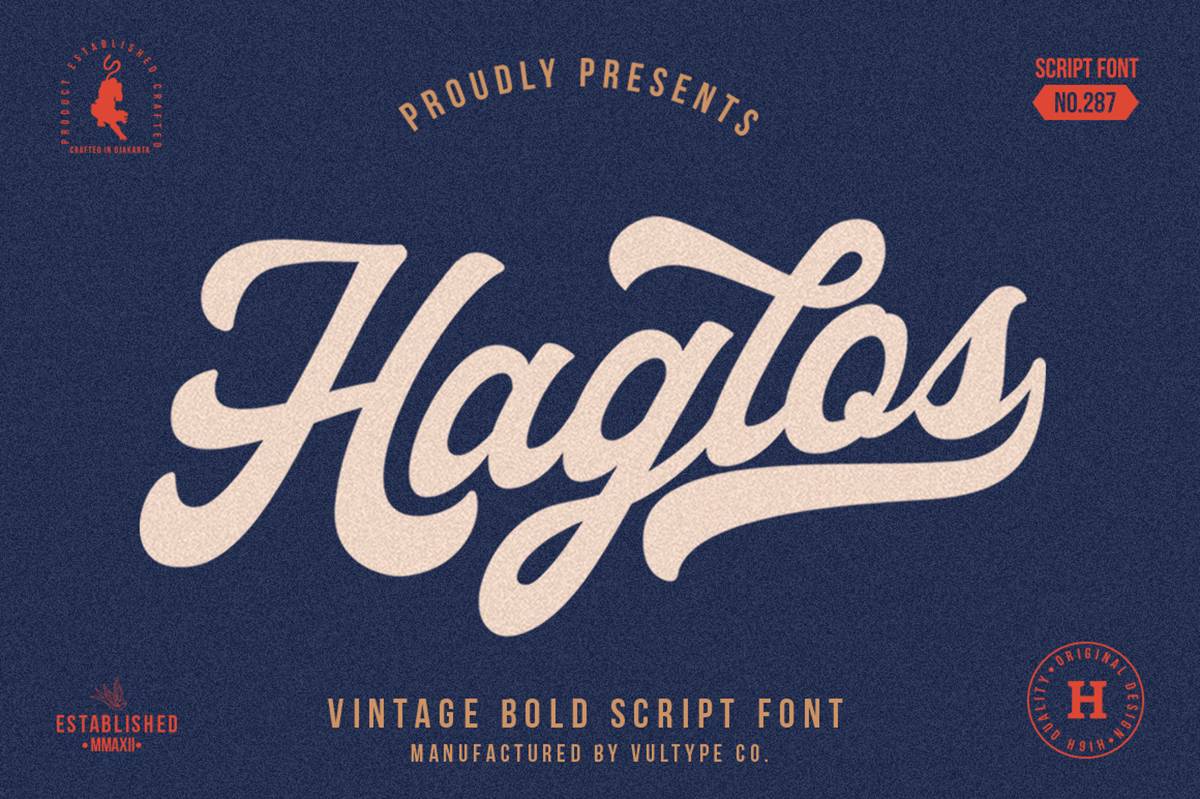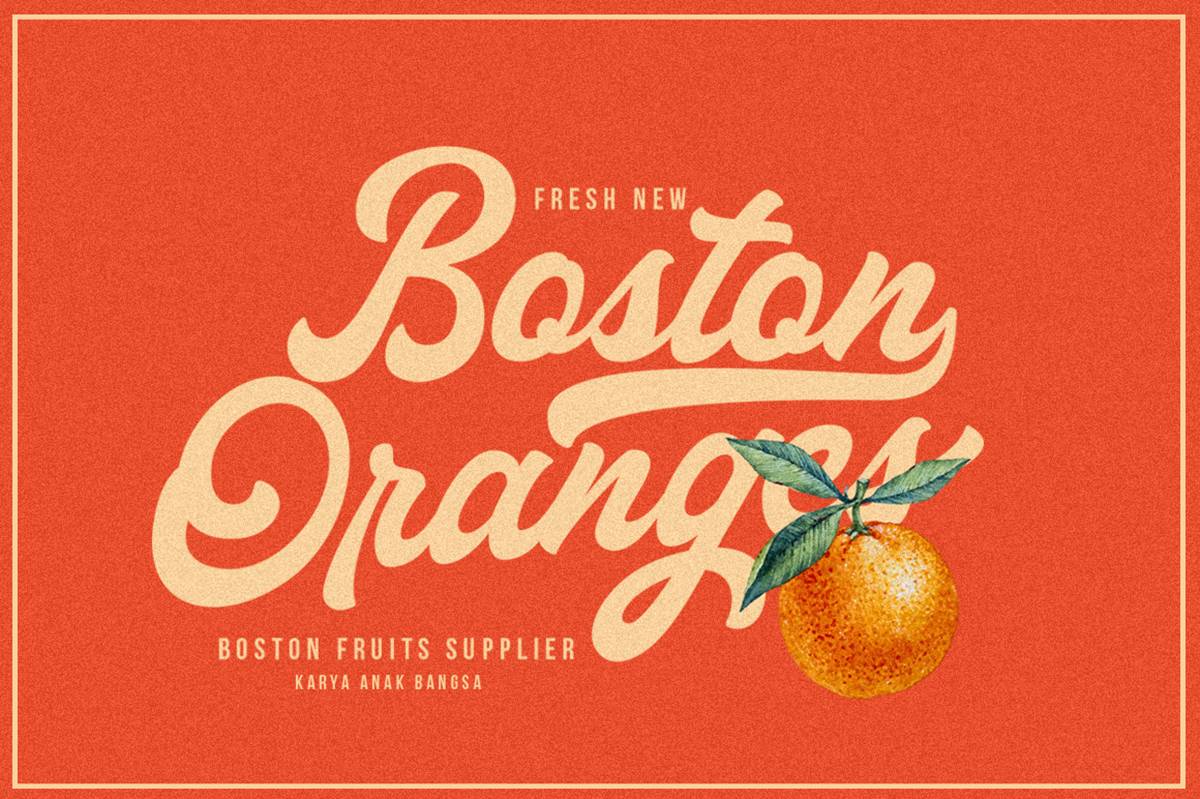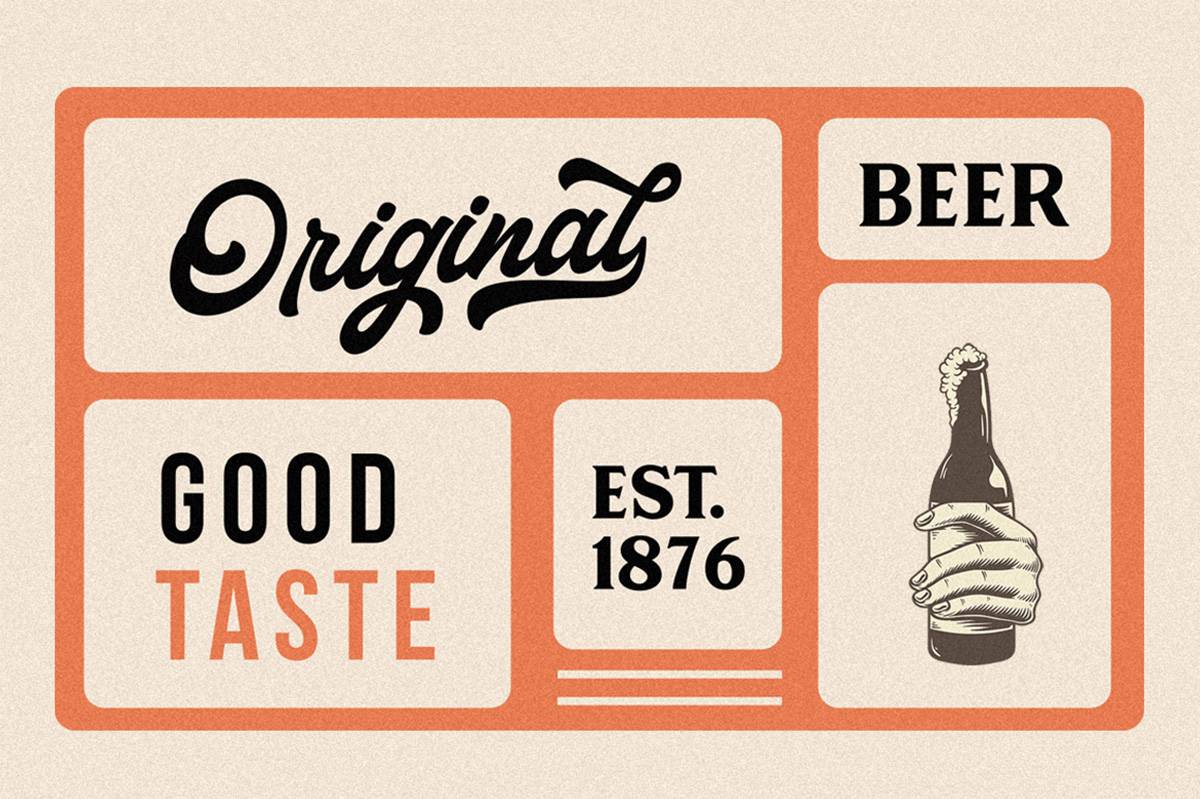
Haglos is a bold, flowing script font featuring a smooth, calligraphic style with pronounced curves and elegant strokes. Its dynamic letterforms convey a lively and stylish personality, making it ideal for vintage-inspired branding, logos, and headlines that need a touch of classic flair with modern readability. This font works especially well in designs aiming for a friendly yet sophisticated look.
Haglos Font
About Haglos Font